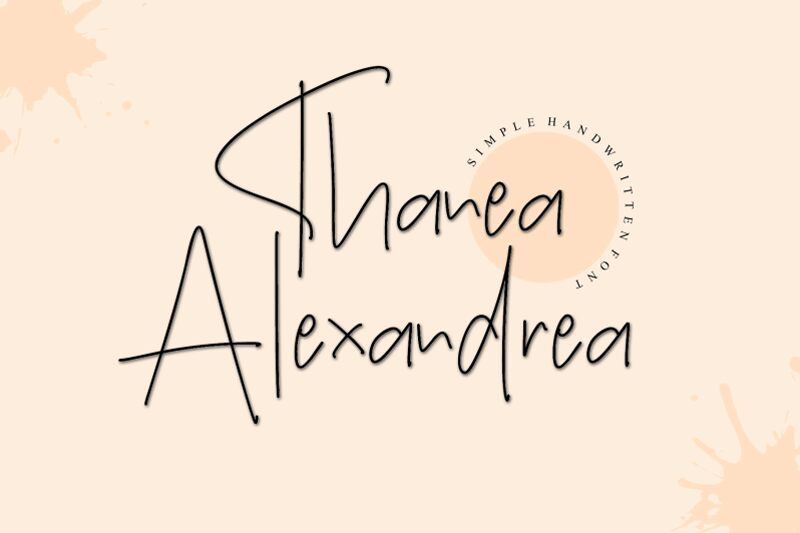
Thanea Alexandrea Regular
Thanea Alexandrea font by Letterafa Studio is an elegant handwritten signature font with a light weight. Casual yet sophisticated, this font combines modern minimalist shapes within a charming aesthetic appeal. Letters are subtle and thin with thicker sections forming rounded edges for a truly special design.